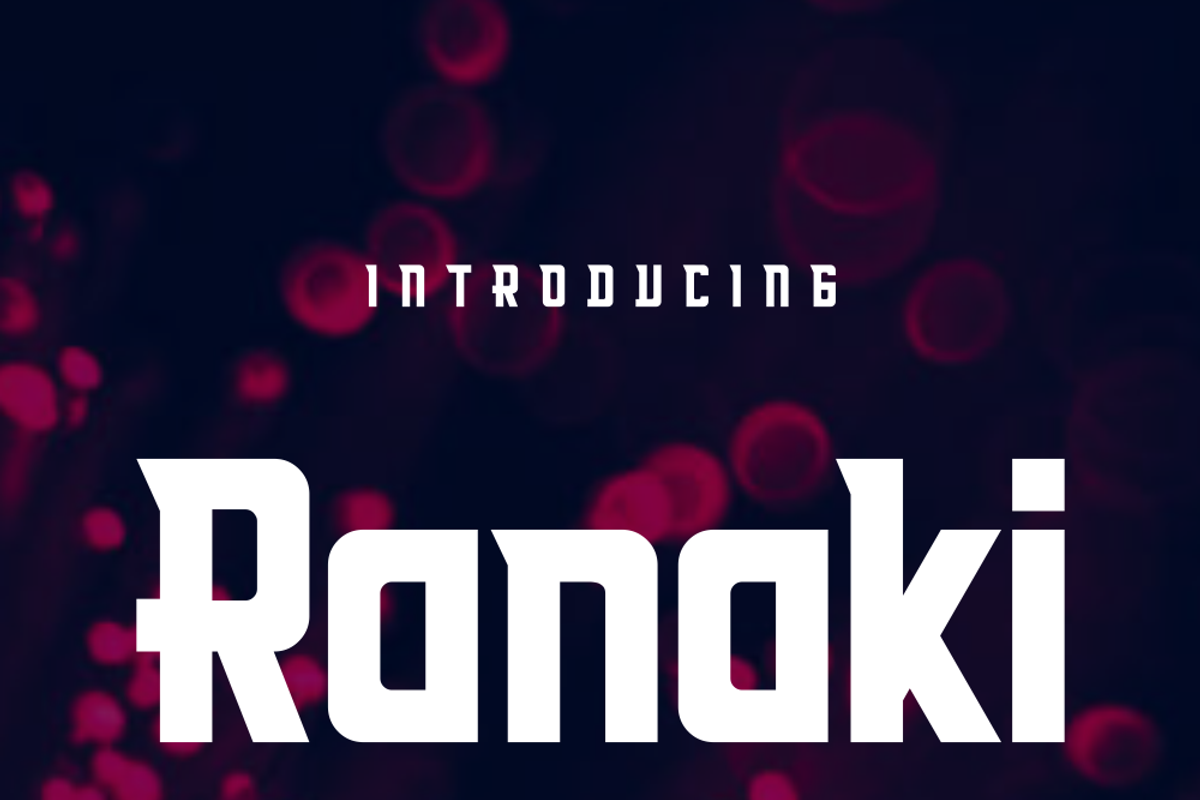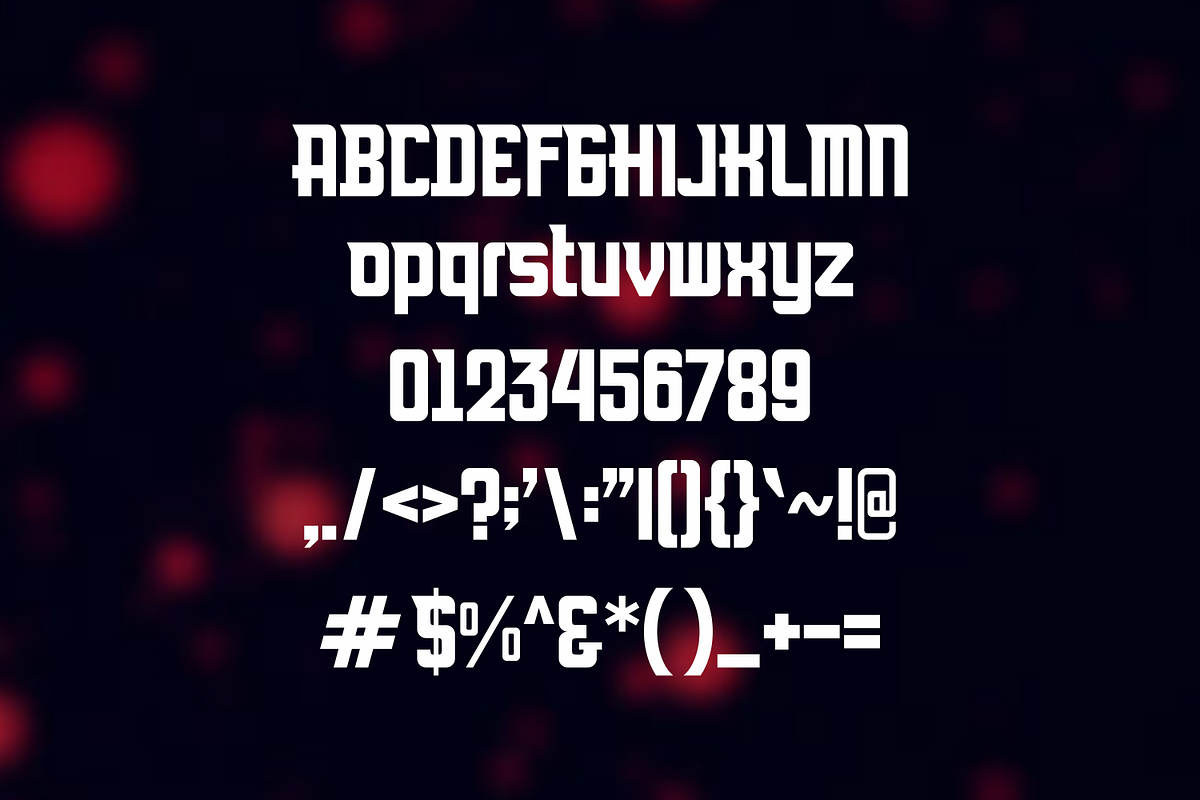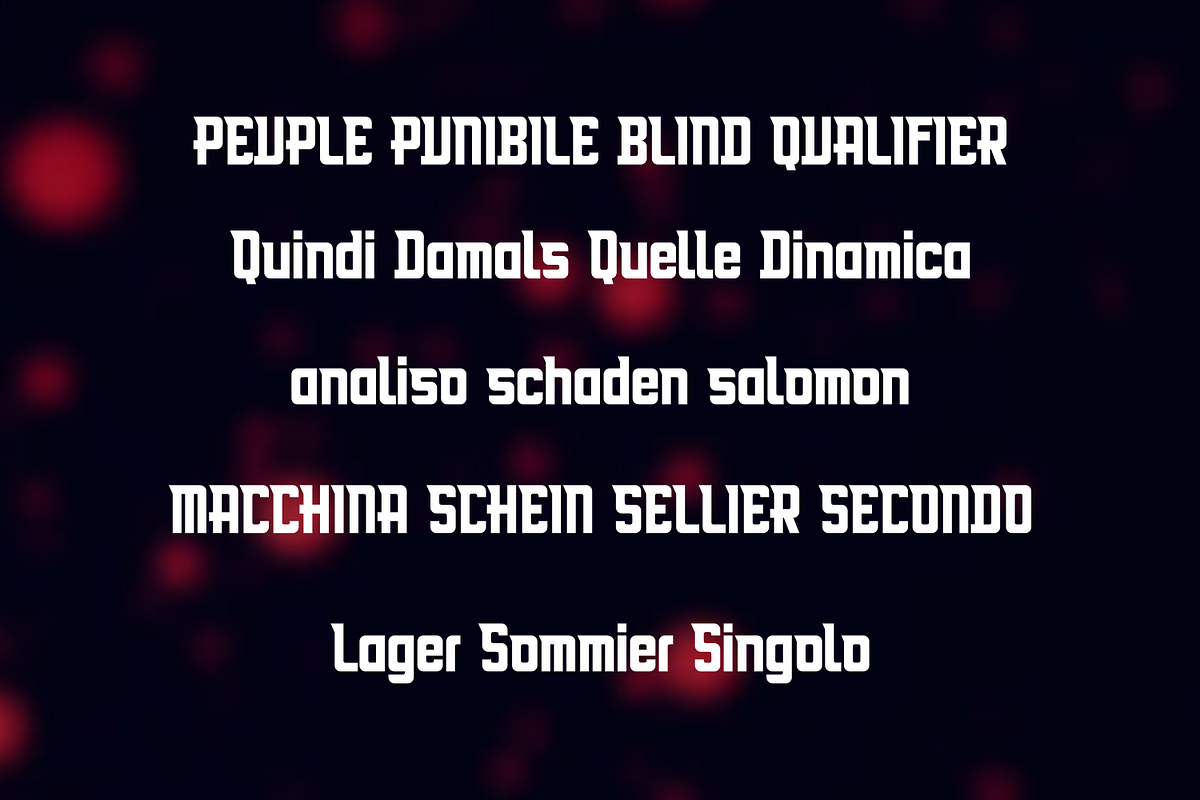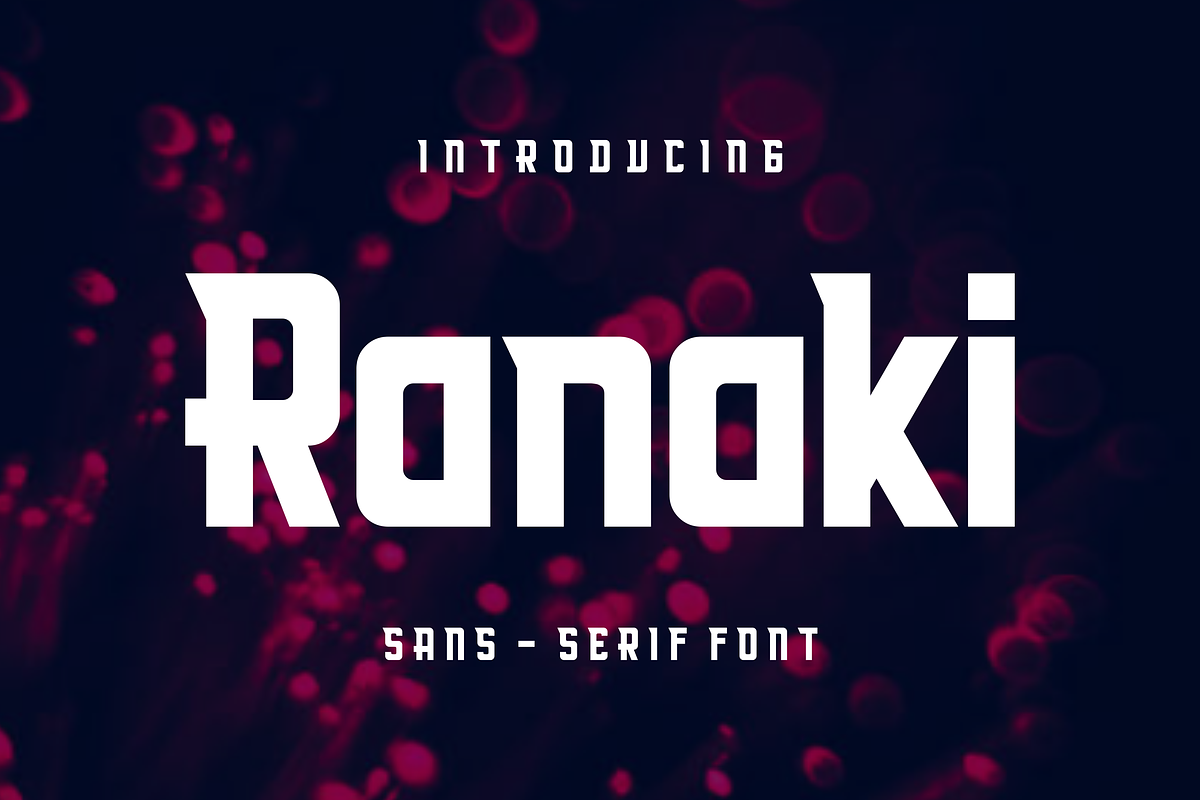
Ranaki
Ranaki Perfectly suited on print/screen. it’s perfect for Branding, name card, poster, logo, magazine, cover, banner, t-shirt and headers, or even large-scale artwork.